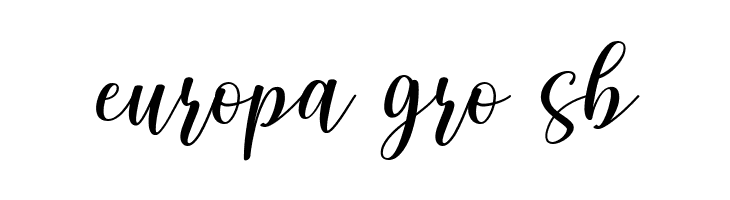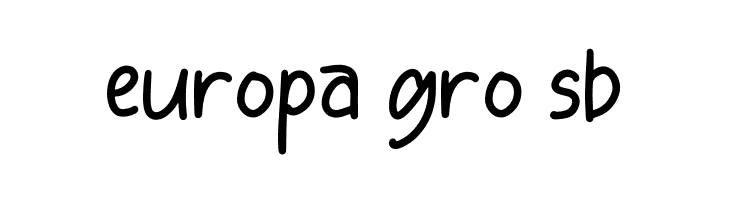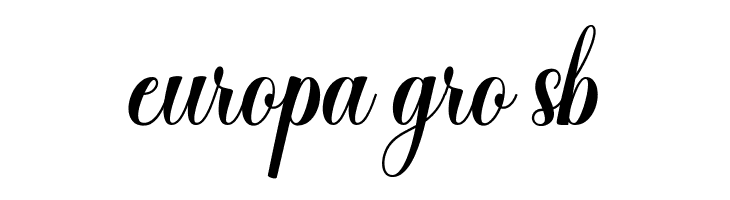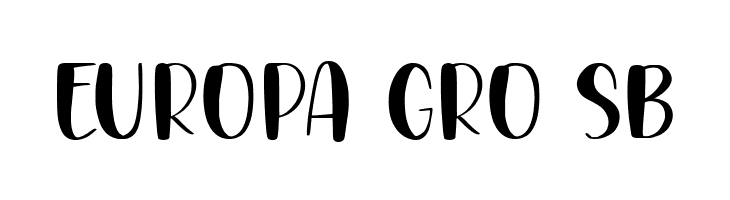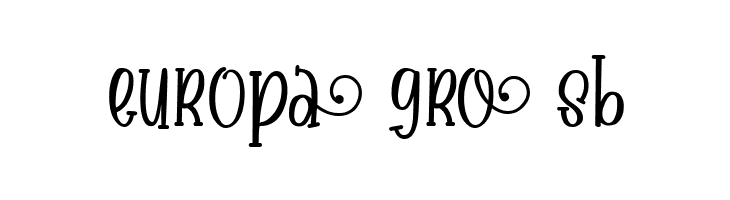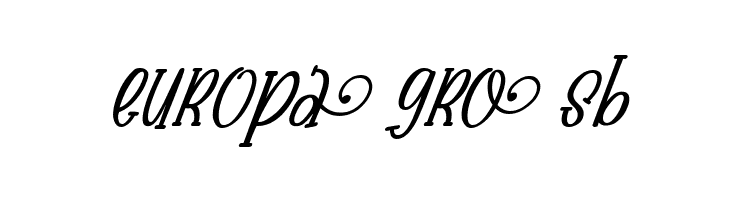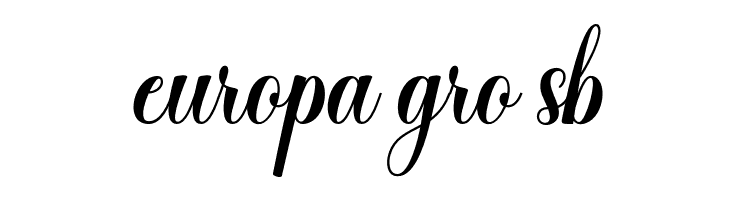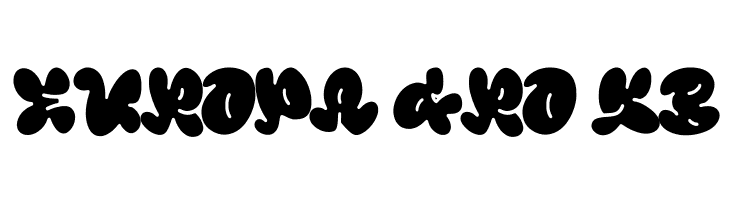
• Babybee
A playful, balloon-like font with bold, rounded characters.
• Babybo
A playful, handwritten font with smooth, rounded edges and a casual style.
• BABYCAKES
A playful, bold handwritten font with rounded edges and varying stroke widths.
• BabyChild
A graceful script font with flowing, interconnected letters.
• BabyChild
A modern, elegant script font with flowing, cursive characters.
• BabyDoll
A playful, rounded font with a whimsical and friendly style.
• Babydoll
A modern, elongated font with sleek, thin strokes and geometric shapes.
• BabyDualistic
A graceful and elegant script font with flowing, cursive strokes.
• Babyface
A playful, handwritten font with a whimsical and charming style.
• Babyface Italic
A dynamic and flowing italic script font with elegant connections.